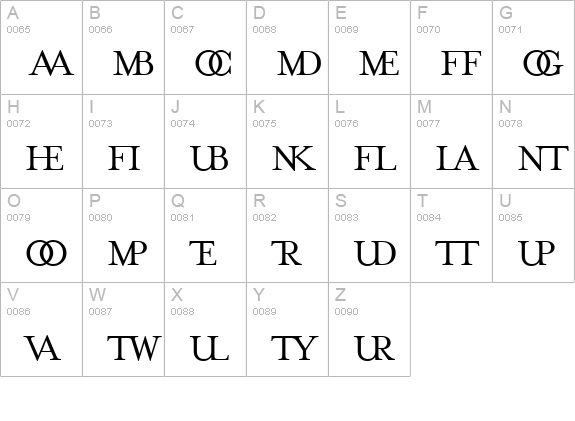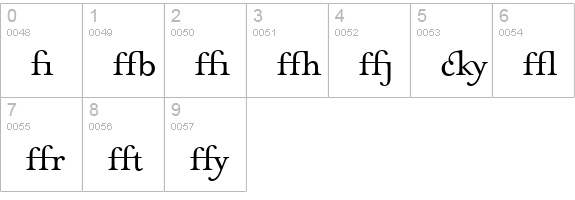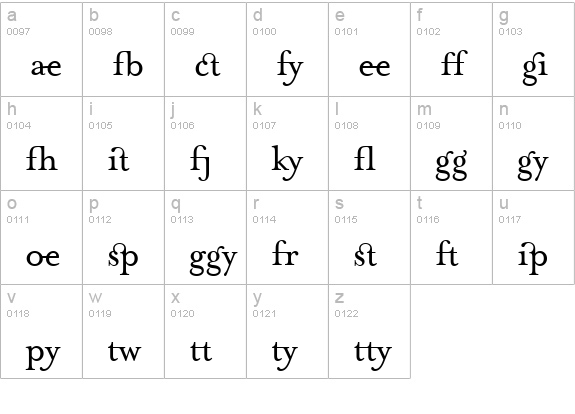
MrsEavesJustLig Regular Font Details
MrsEavesJustLig Regular is the standard, neutral variant in the MrsEavesJustLig typeface family \xE2\x80\x94 well suited to general body text, paragraphs, and standard typographic work.
MrsEavesJustLig Regular is a beautiful and elegant serif font that exudes classic charm and sophistication. With its delicate ligatures and flowing curves, this typeface is perfect for adding a touch of refinement to any design project. Whether you're creating invitations, branding materials, or editorial layouts, MrsEavesJustLig Regular will bring a timeless quality to your work. The best part is that MrsEavesJustLig Regular is available for free download at FontsMarket.com. This means you can easily access this exquisite font and use it in your projects without any cost. Don't miss out on the opportunity to enhance your designs with the grace and style of MrsEavesJustLig Regular - download it for free today!